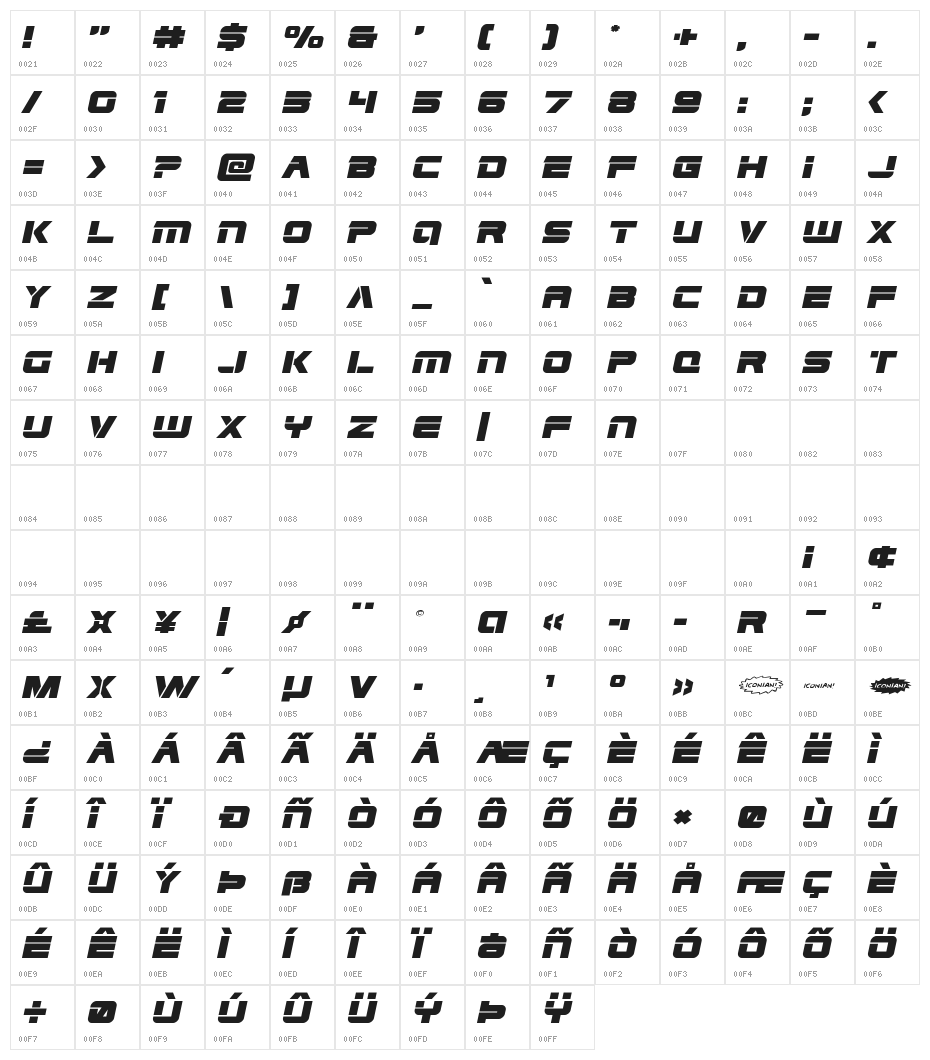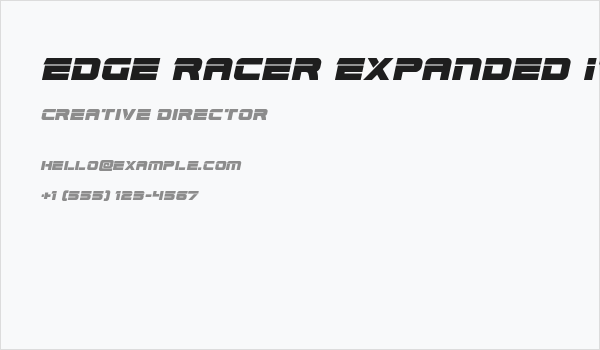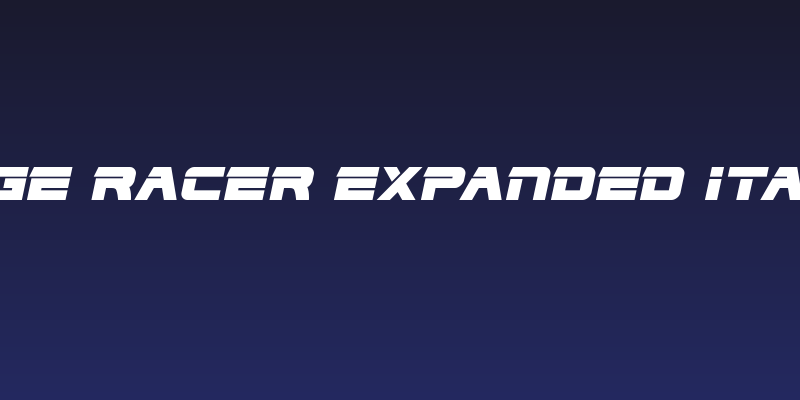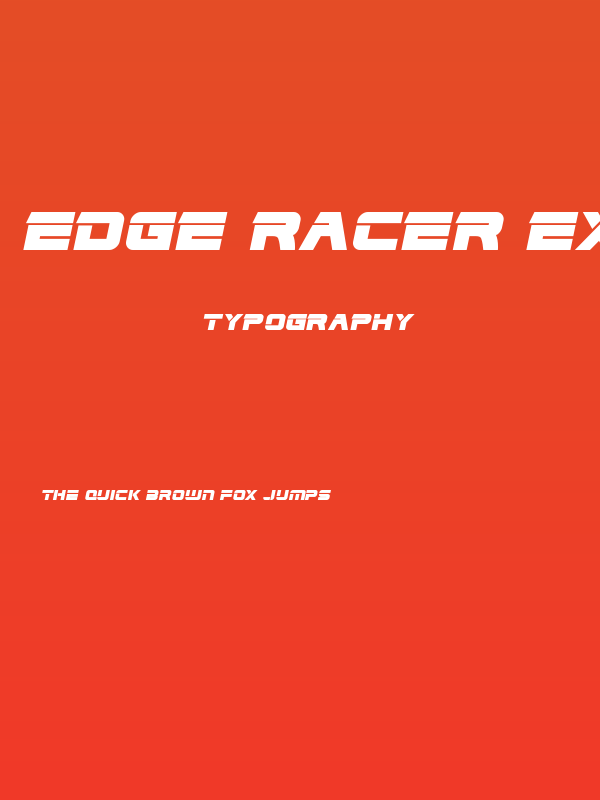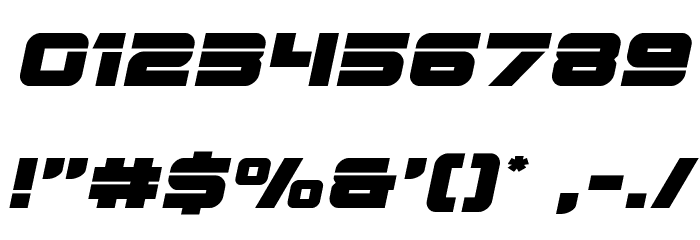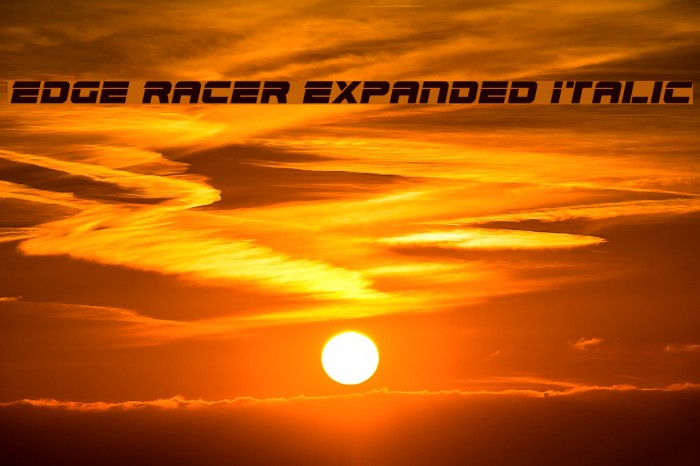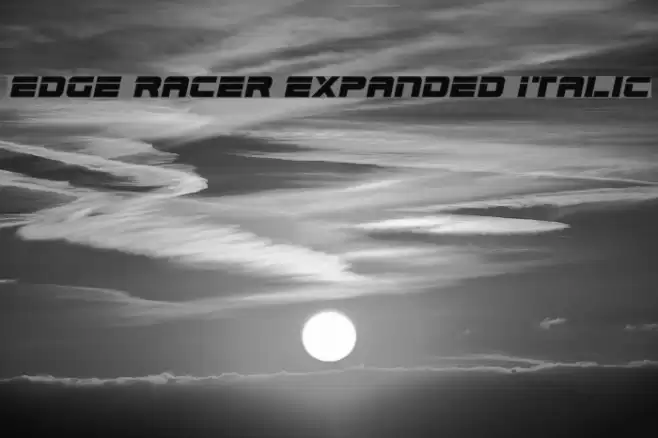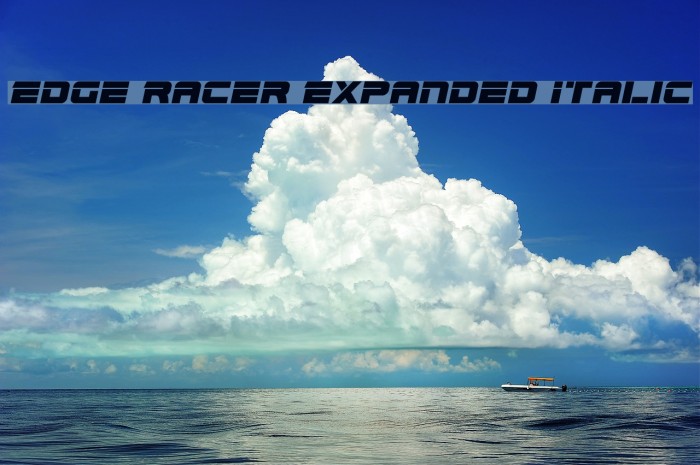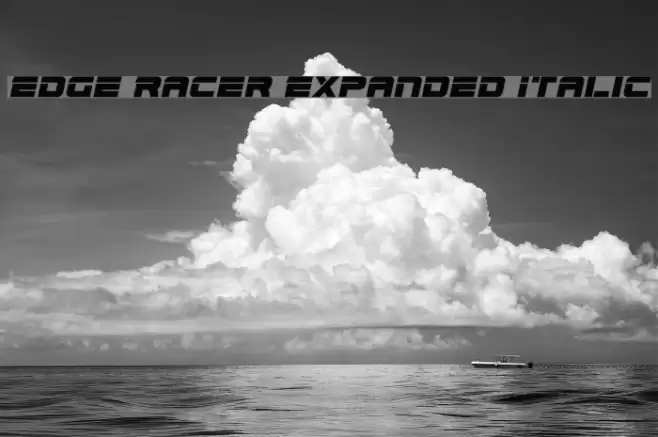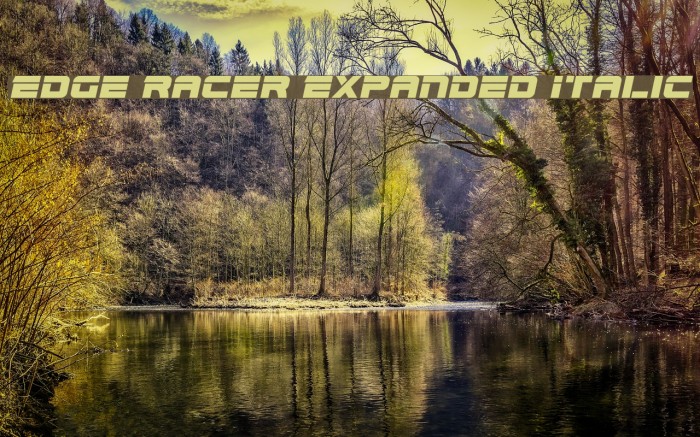
Edge Racer Expanded Italic Font
Edge Racer Expanded Italic Description
This font features a bold and dynamic style with a futuristic flair. The characters are designed with an expanded width and italic slant, giving them a sense of motion and speed. The strokes are thick and consistent, providing a strong visual impact. The angular cuts and sharp edges contribute to its modern and edgy appearance. This typeface is ideal for projects that require a bold statement, such as sports branding, automotive designs, or tech-related themes. The numbers and special characters maintain the same bold and angular style, ensuring consistency across all elements.
| Proposed Projects | Ideal for sports branding, automotive designs, tech themes, and dynamic headlines. |